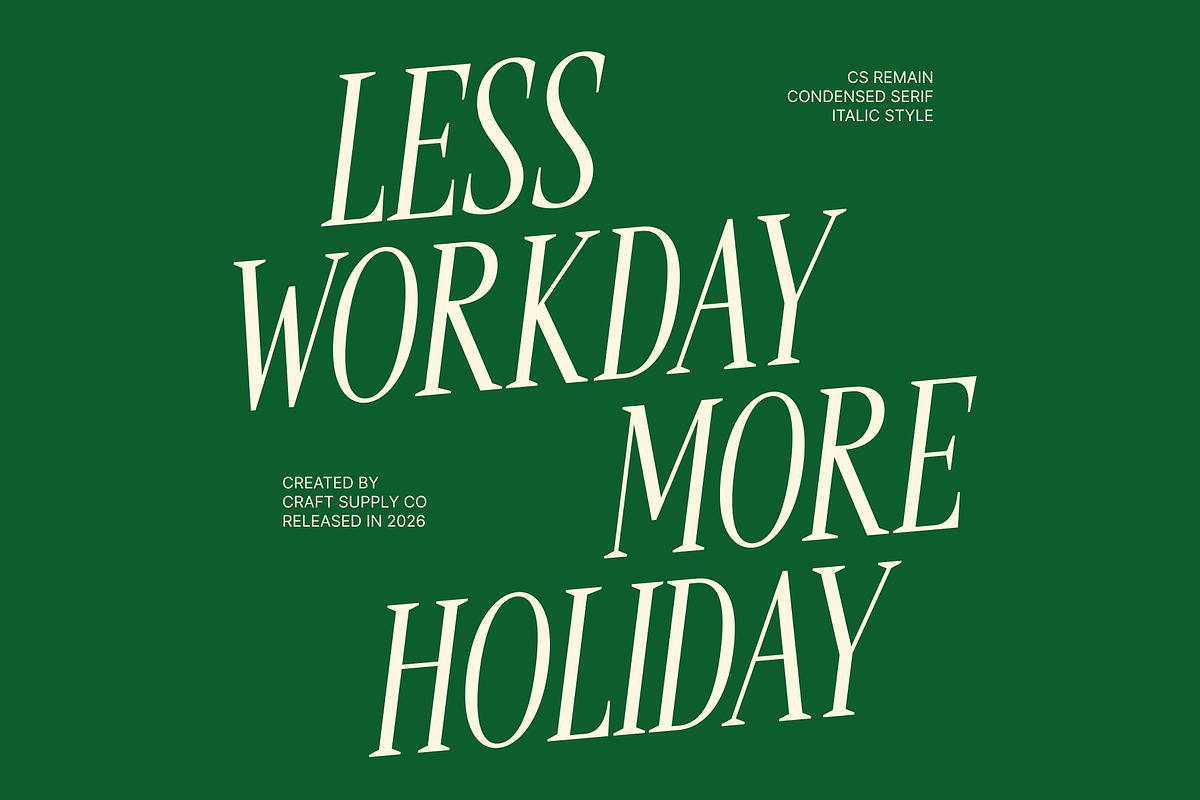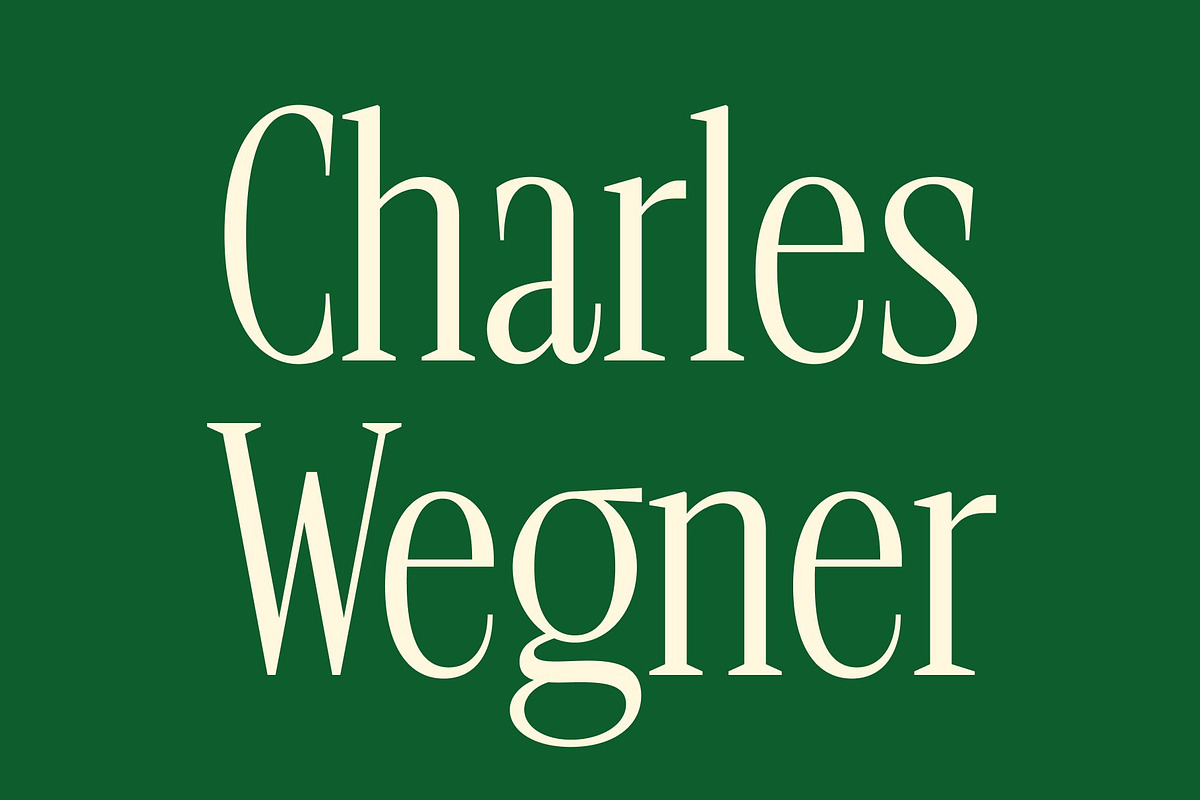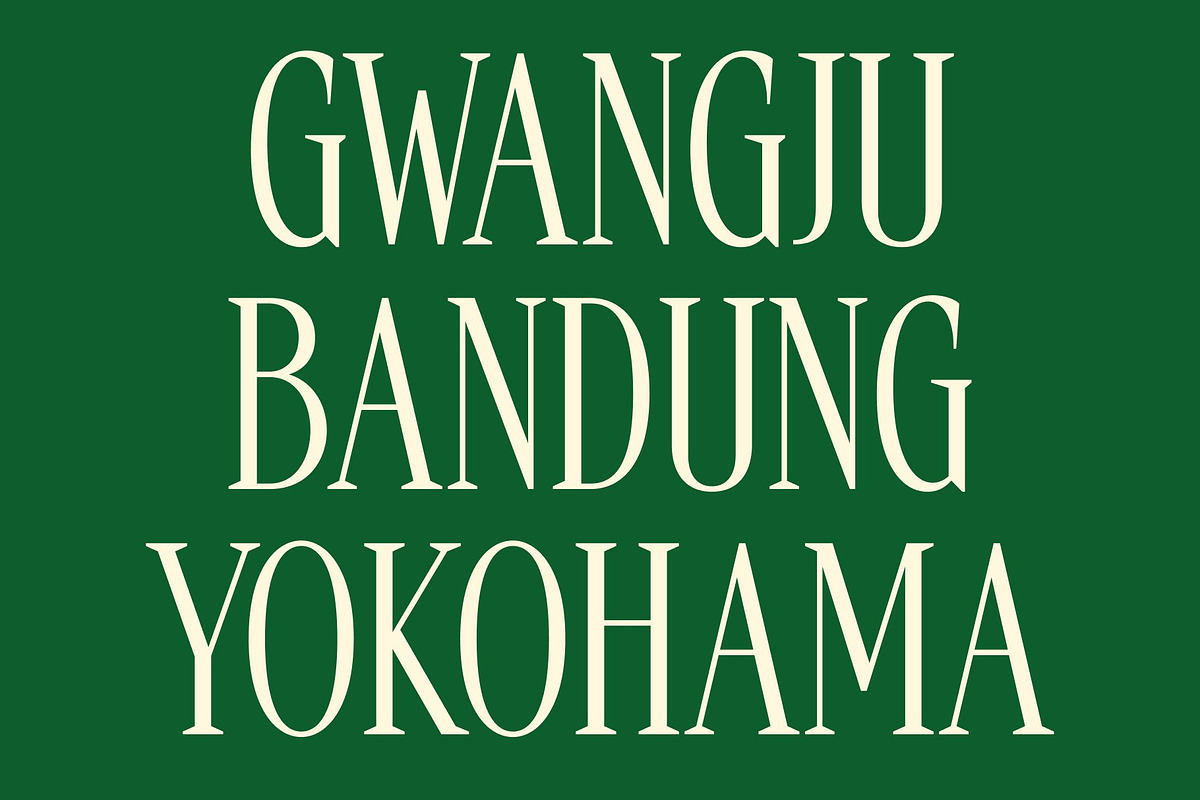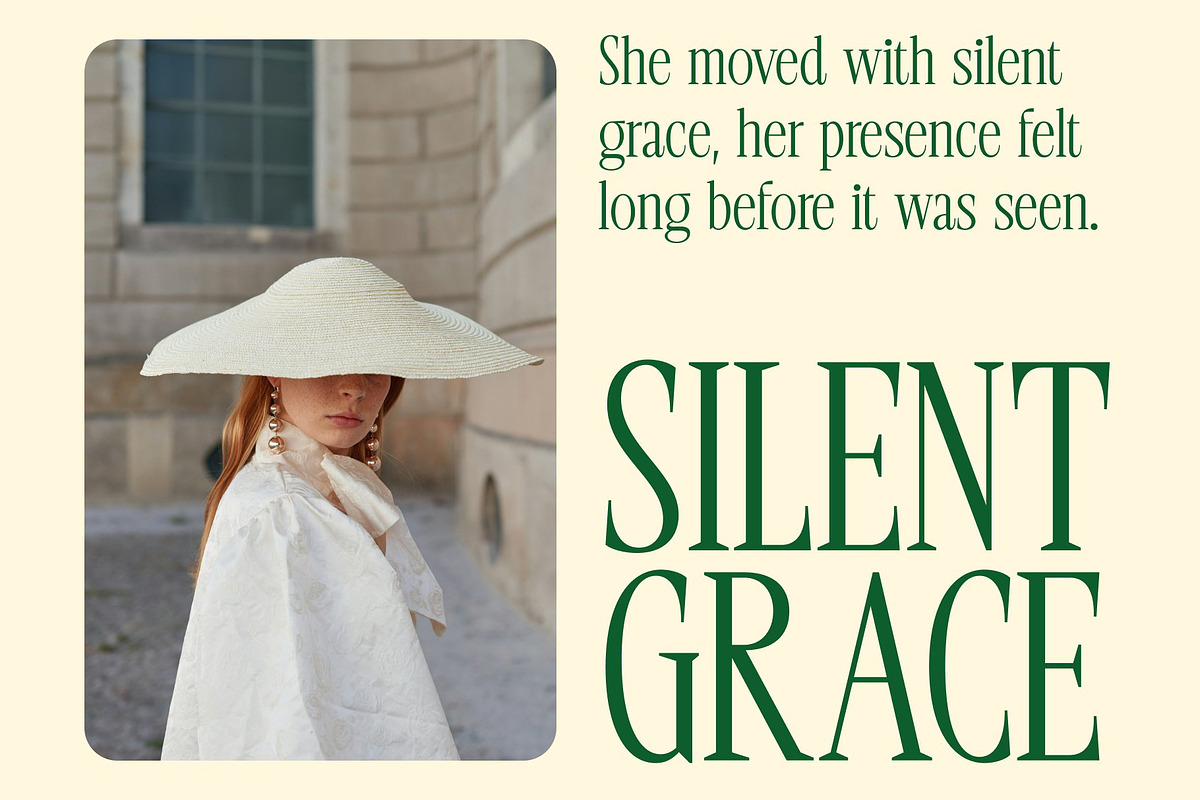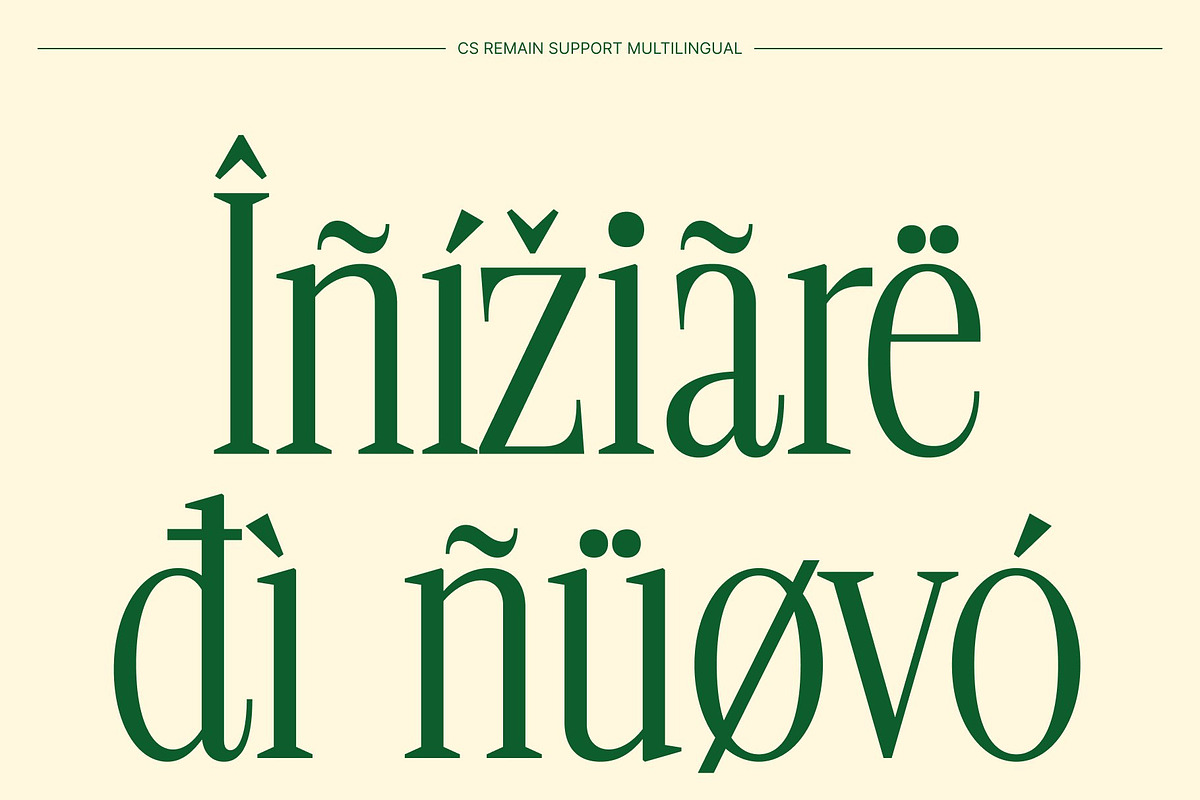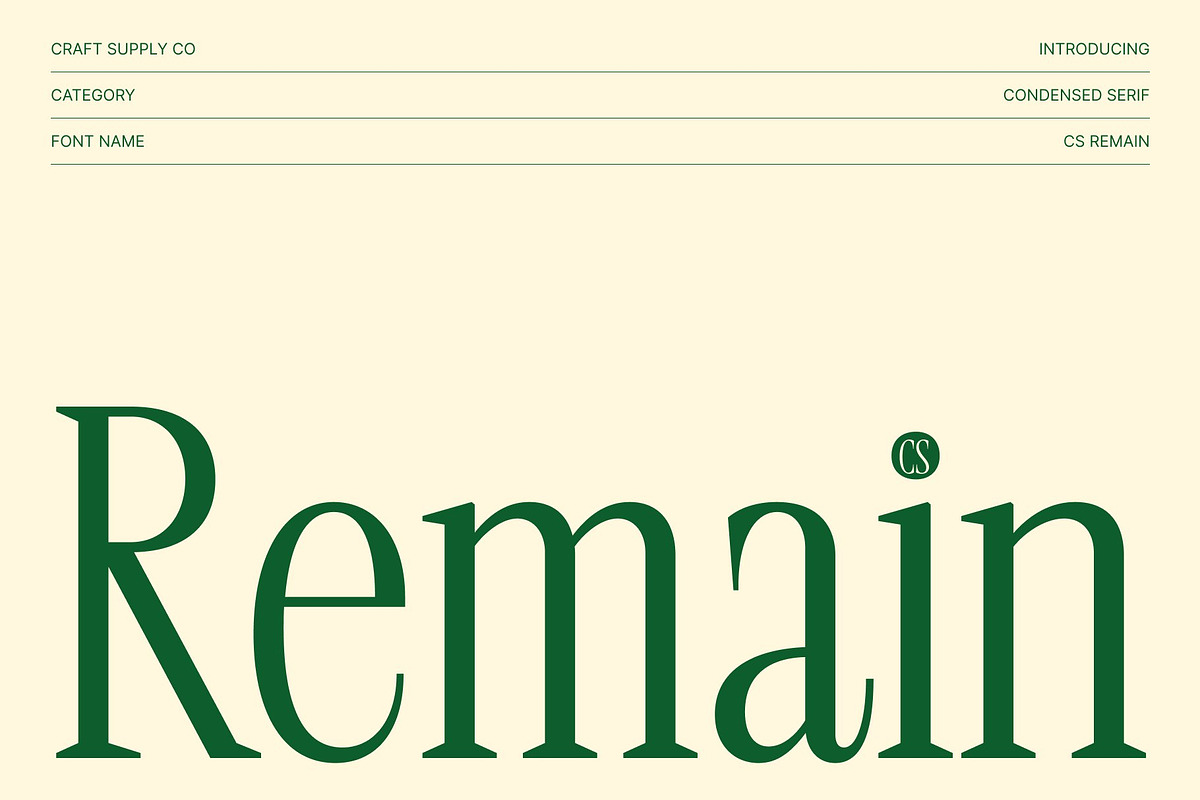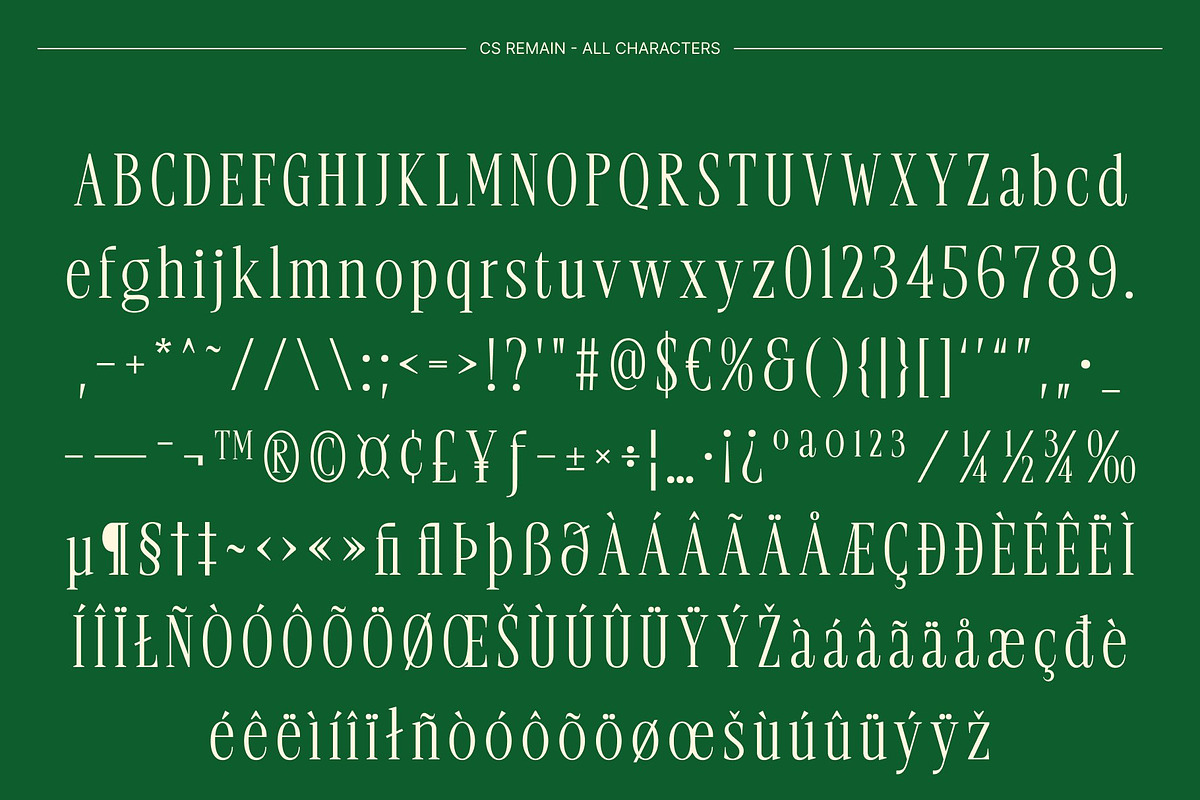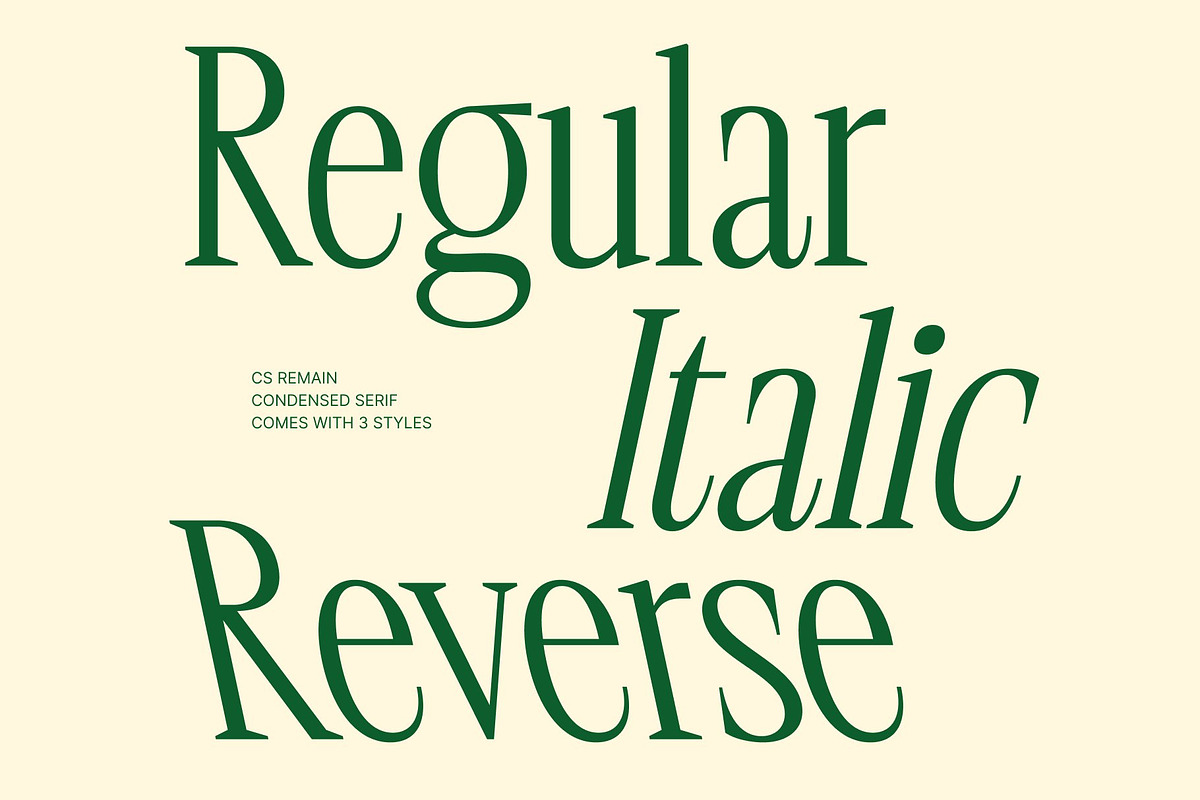
CS Remain – Classic Serif Font
CS Remain – Modern Classic Elegance with Contemporary Appeal
Modern Classic Serif Font with Refined Character This is a modern classic serif font designed to blend timeless elegance with clean, contemporary aesthetics. Its carefully structured letterforms and balanced proportions create a sophisticated and captivating visual presence that feels both familiar and fresh. This refined combination allows to deliver a polished look that elevates designs with confidence and subtle luxury.
Clean Design with Contemporary Sophistication The clean construction of this font enhances clarity and readability while maintaining an elegant serif character. Smooth curves, controlled contrast, and precise details give the font a modern edge without losing its classic roots. This balance results in a typeface that feels graceful, stylish, and visually engaging, perfect for high-end creative communication.
Timeless Style with Captivating Expression This font carries a quiet strength that makes it visually striking without being overpowering. Its modern classic tone allows it to adapt effortlessly to various design contexts while maintaining a sense of class and distinction. The font communicates sophistication and creativity, making it ideal for designers who seek elegance paired with contemporary flair.
Ideal for Luxury Branding, Editorials, and Creative Projects Designed for premium and expressive use, this font is ideal for luxury branding, posters, editorial layouts, and creative projects that demand a stylish and classy appearance. Its refined serif form enhances headlines, brand identities, and visual storytelling with elegance and impact.
- CS Remain Regular
- CS Remain Italic
- CS Remain Reverse Italic